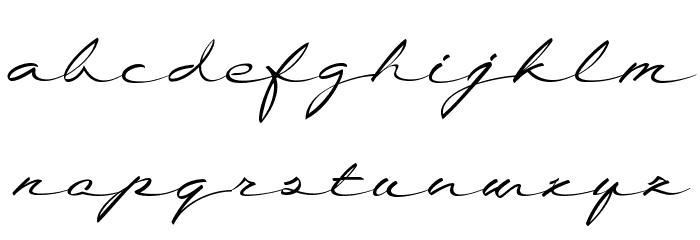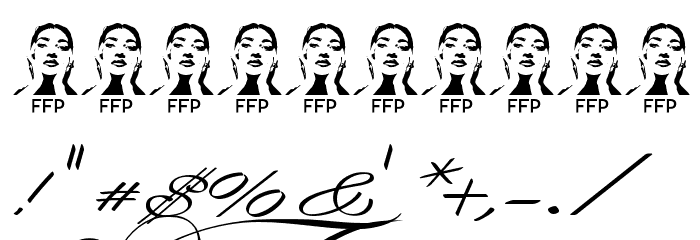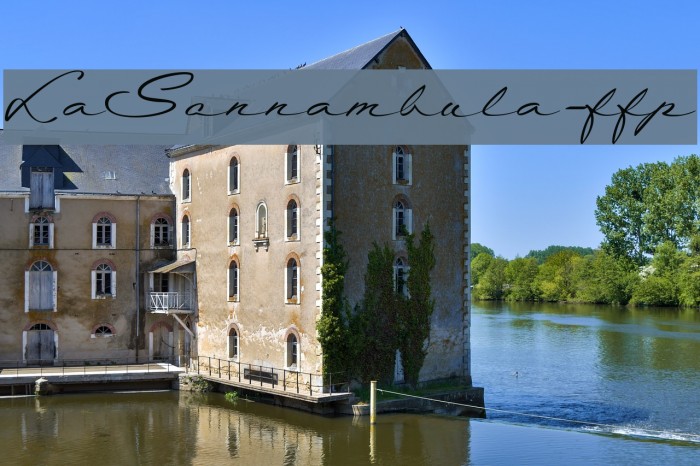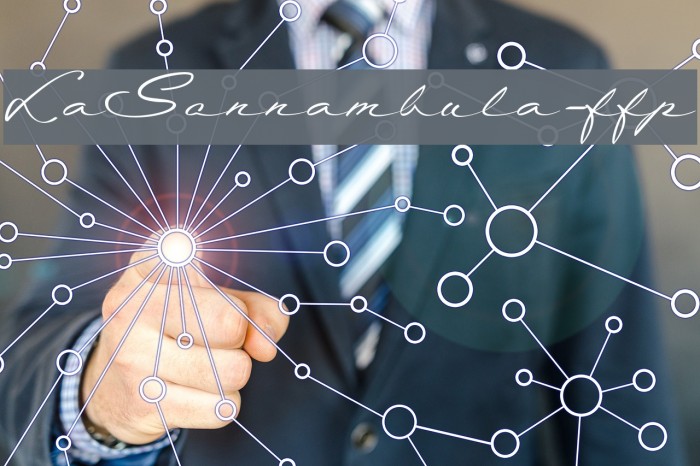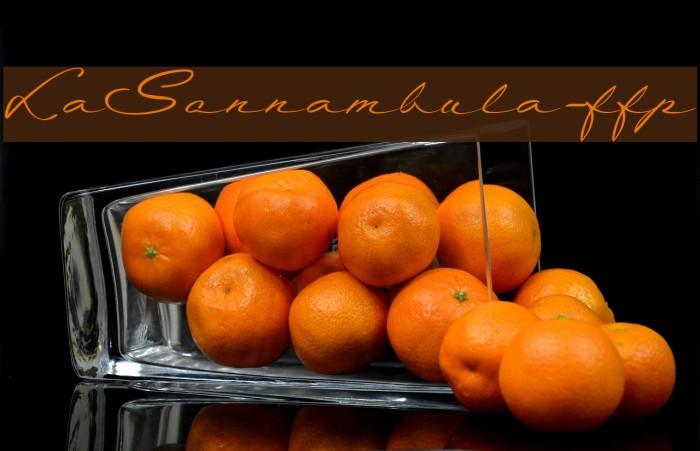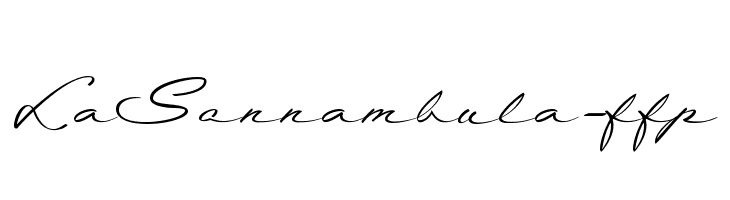
LaSonnambula-ffp Font
This elegant script font features fluid, cursive strokes that convey a sense of sophistication and grace. The letters are connected seamlessly, creating a harmonious flow that is both stylish and legible. The uppercase letters are slightly more elaborate, with decorative flourishes that add a touch of flair, while the lowercase letters maintain a consistent, smooth appearance. The numerals and special characters are designed to complement the overall aesthetic, ensuring a cohesive look across all text. This font is ideal for projects that require a personal, handwritten touch, such as invitations, greeting cards, and branding materials.
An elegant, cursive script font with fluid, connected strokes.
- Proposed Projects: Ideal for wedding invitations, personal branding, greeting cards, and elegant packaging.
- Overall Style: Elegant, Sophisticated
- Use Case: Invitations, Branding, Greeting Cards